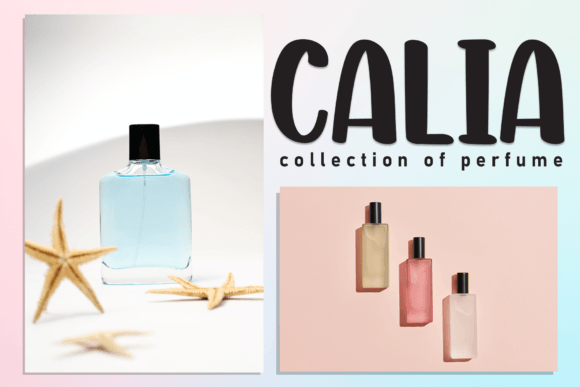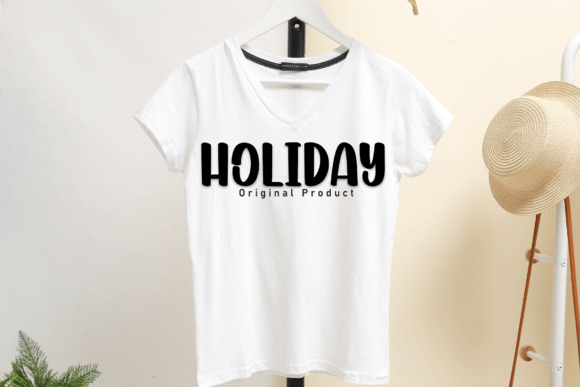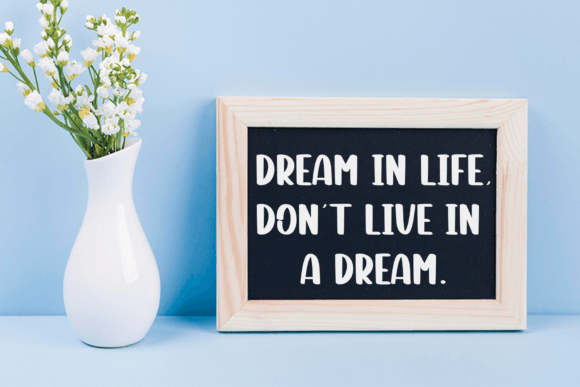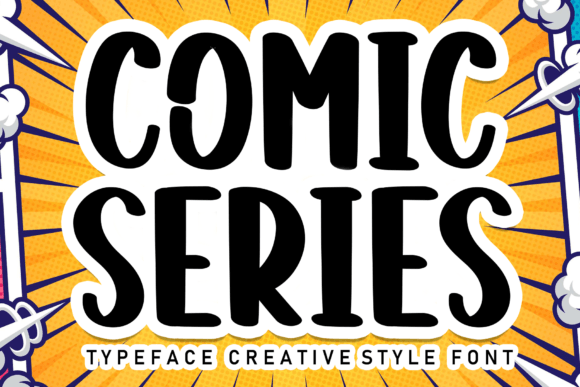
Introduction to Comic Series Font
Comic Series is a sweet and friendly handwritten display font.
Cute and fun, this font is ideal for writing wedding invitations, cards, or any other design that might need a fun touch .
Key Features of Comic Series Font
Why Choose Comic Series Font?
Comic Series Font offers exceptional quality and versatility, making it a valuable addition to your design toolkit. Whether you’re creating for personal projects or commercial use, Comic Series Font delivers professional results.